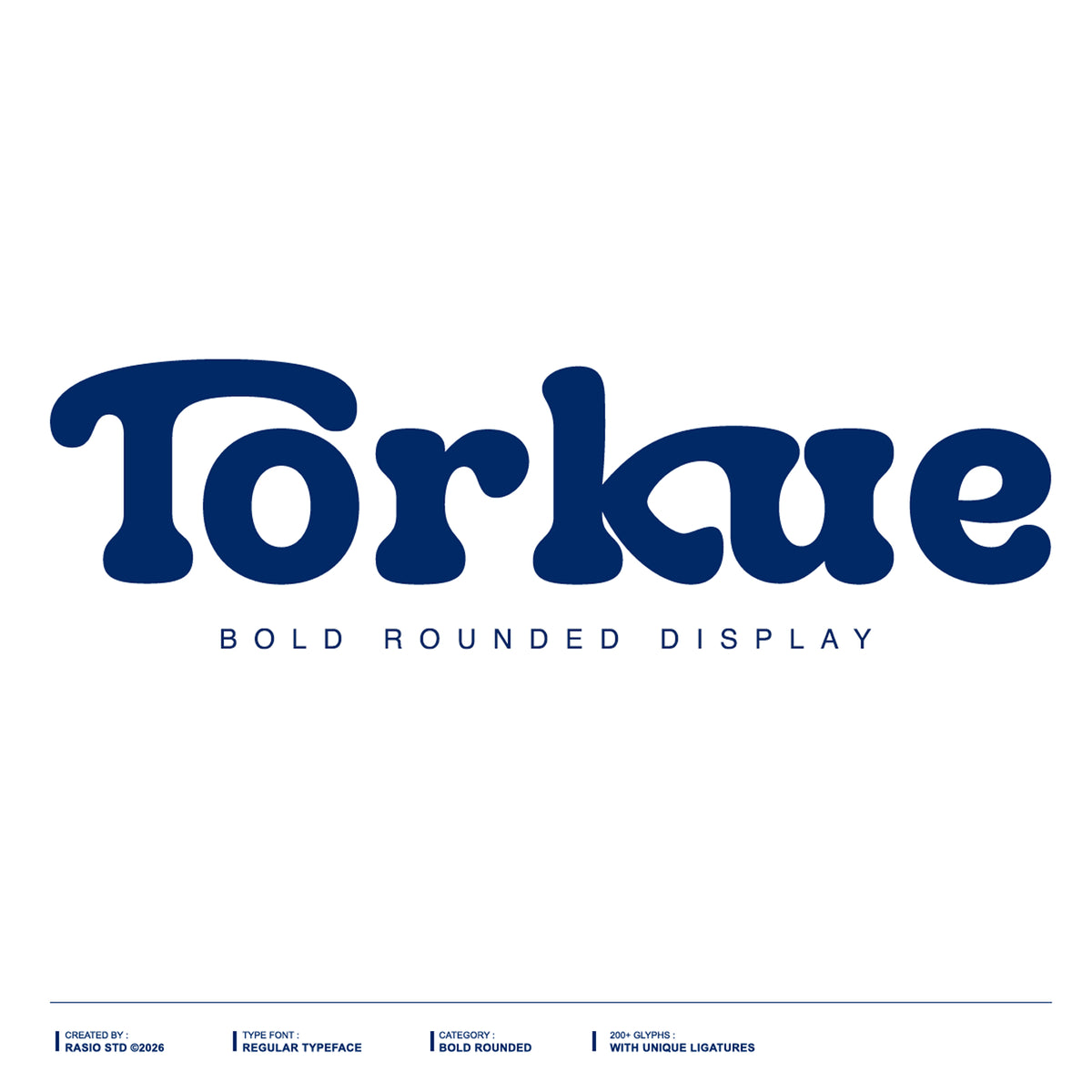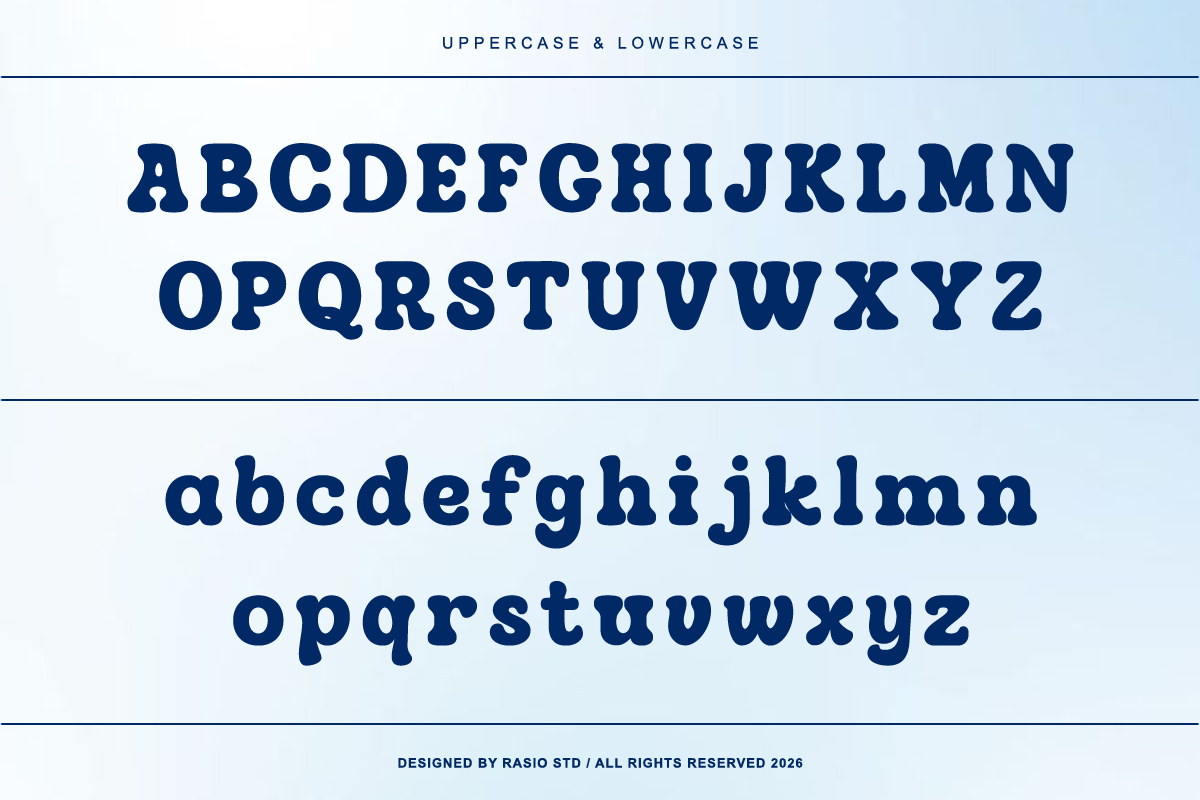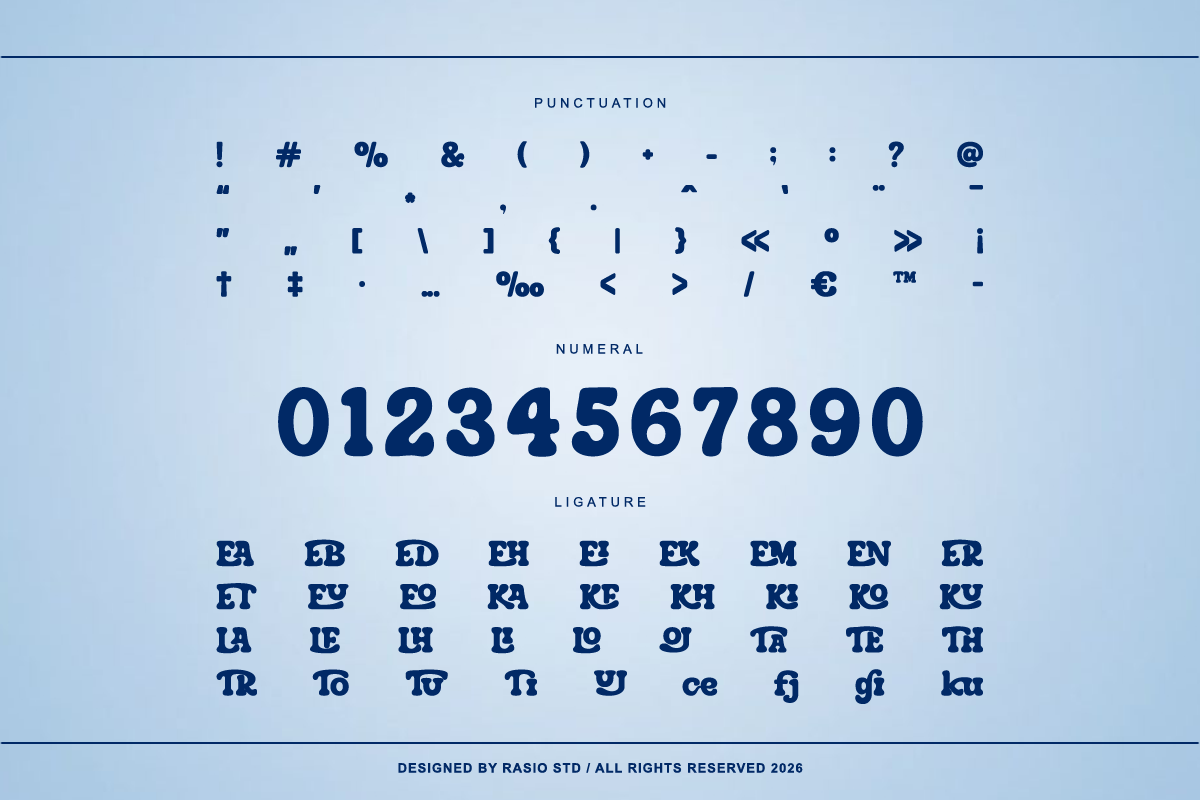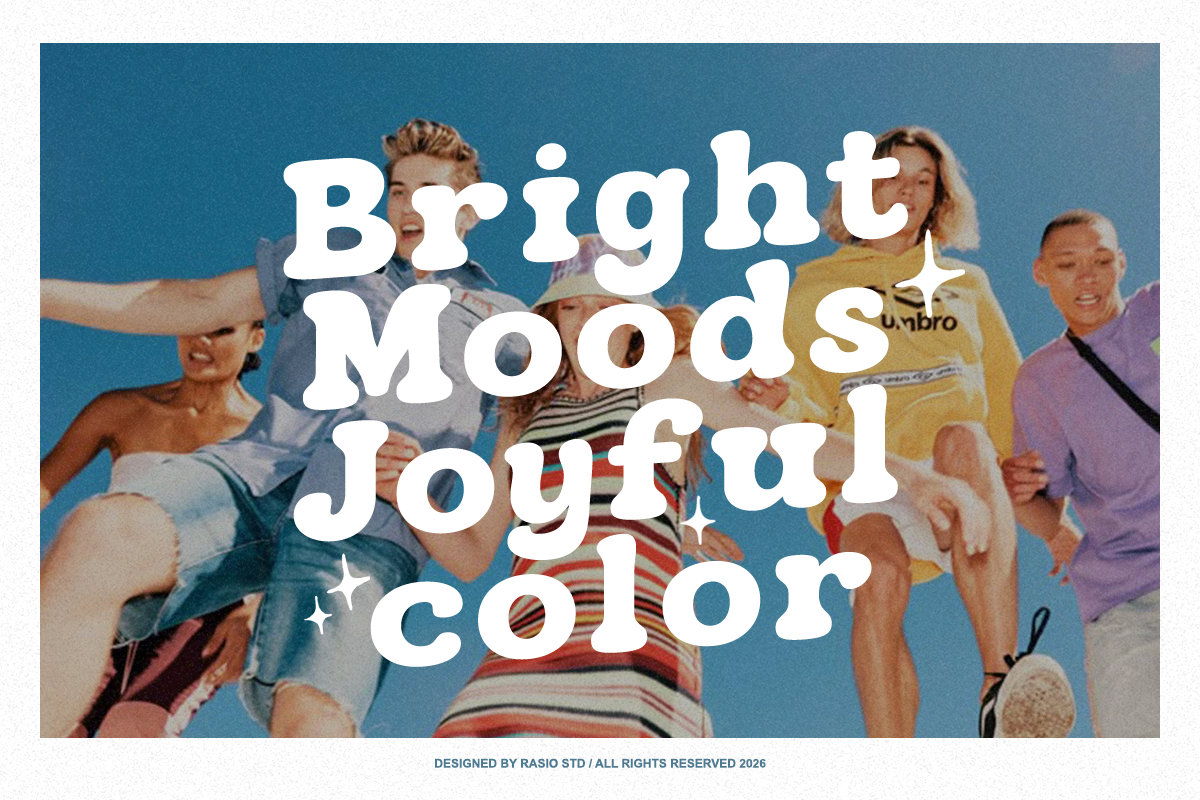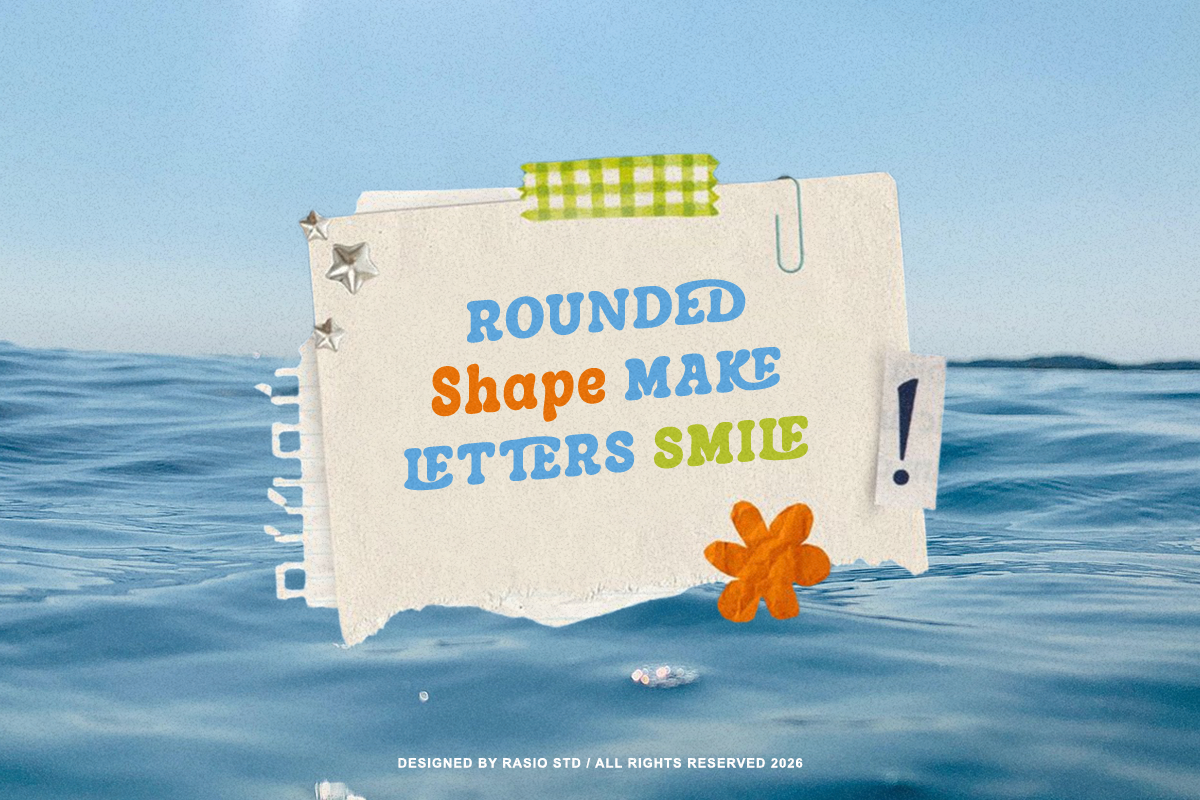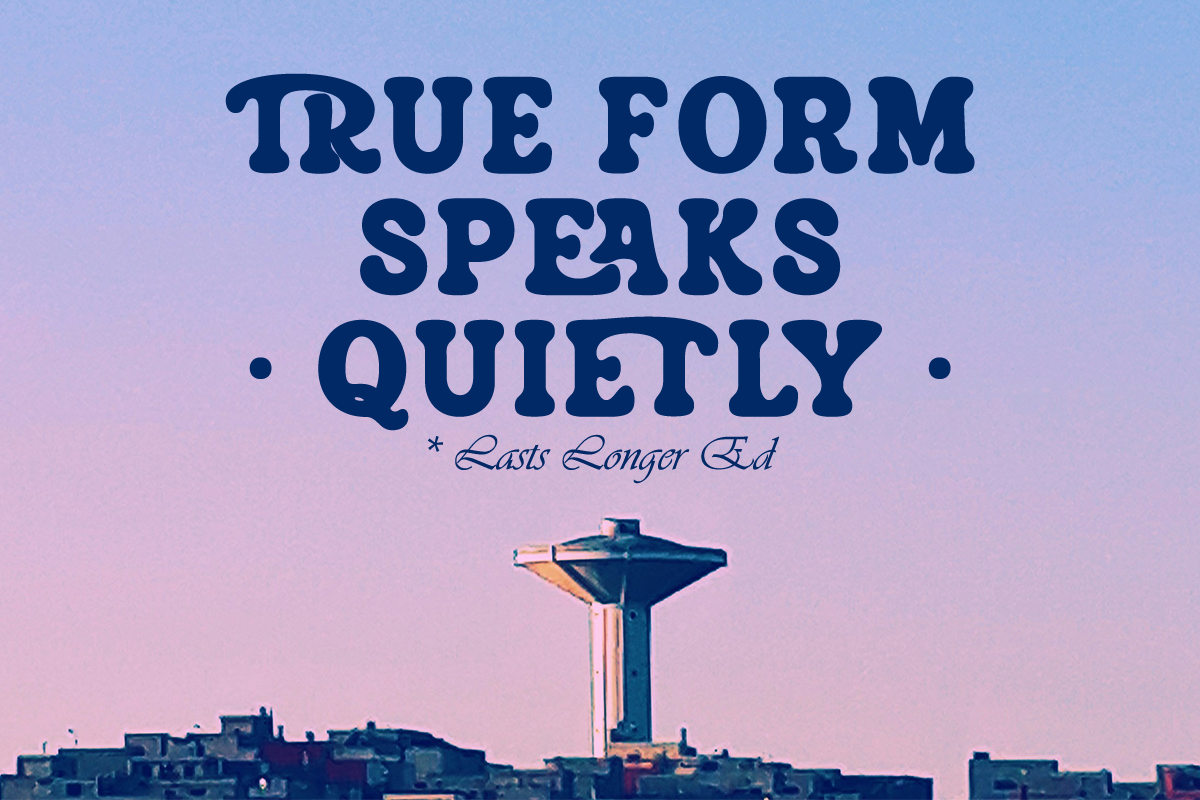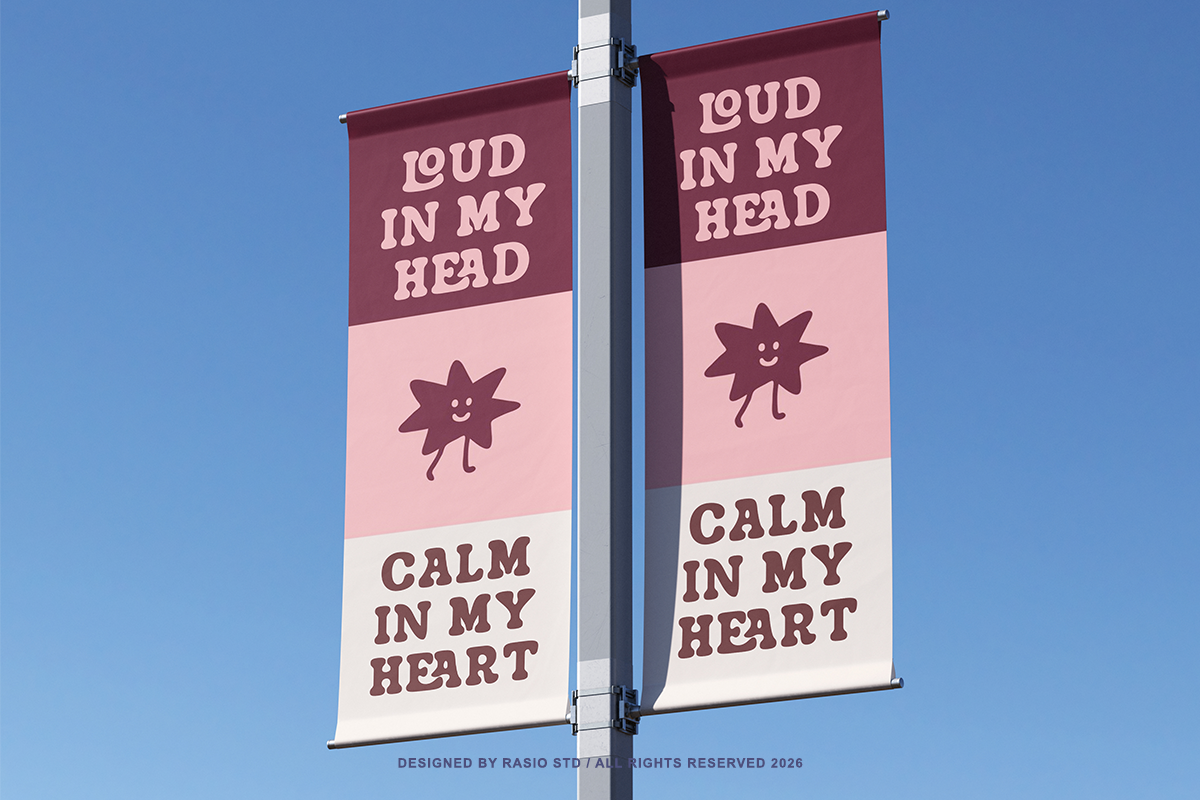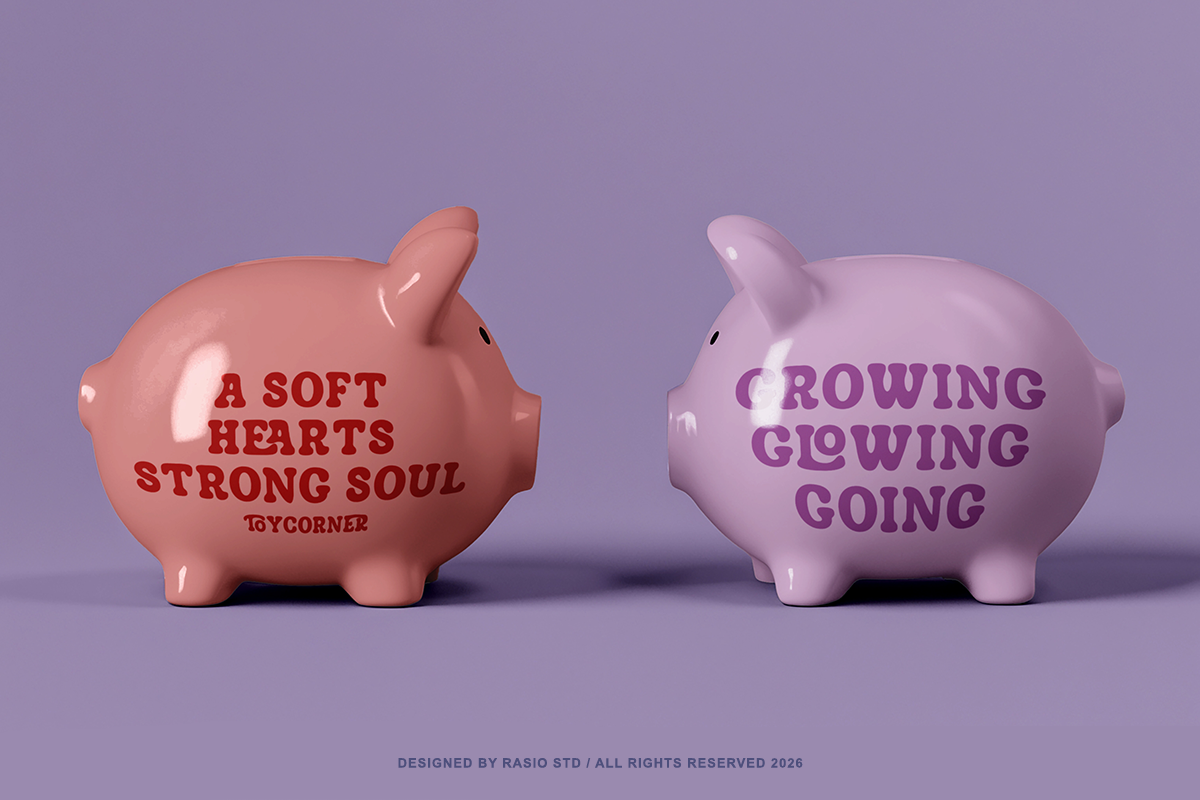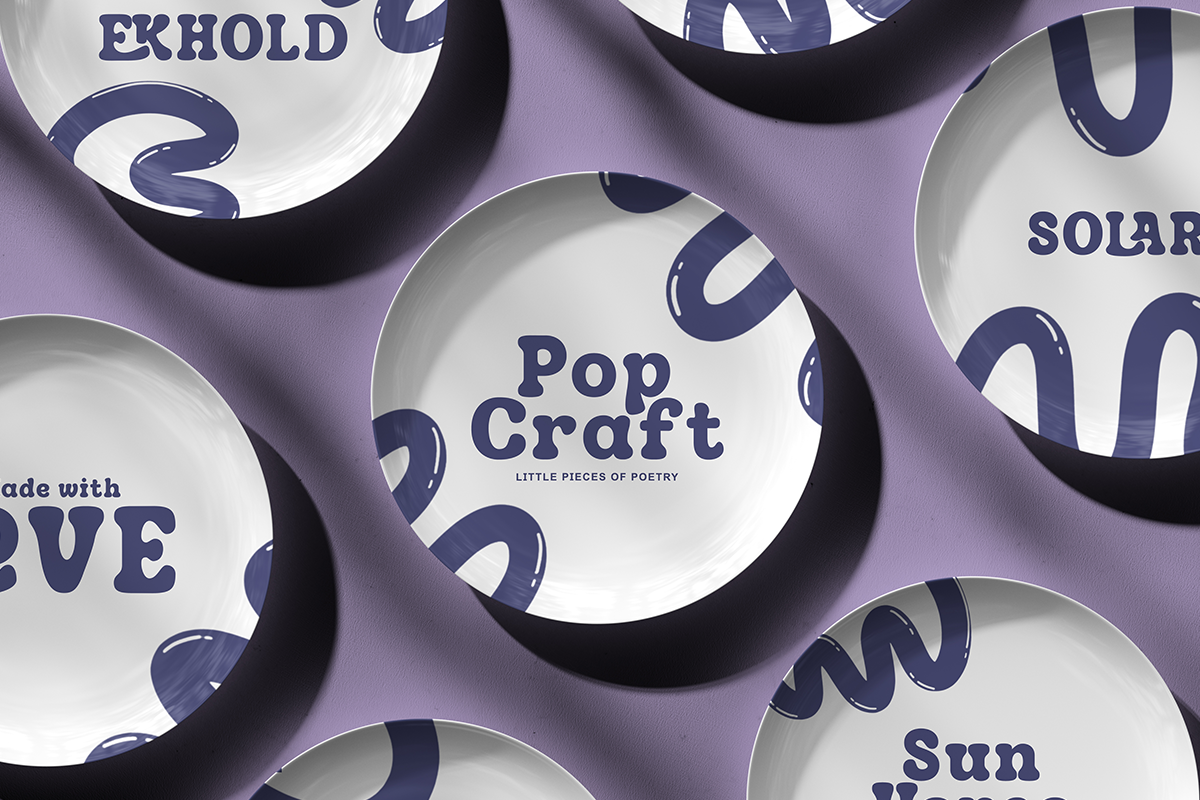
Torkue Bold Rounded Display Font
Torkue is a fun, bold rounded display typeface, with soft curves and a playful structure, this typeface brings character and warmth to any design. It includes uppercase, lowercase, numbers, punctuation, and over 200 unique ligatures, offering creative flexibility for eye-catching headlines, logos, social graphics, and packaging. Torkue is ideal for projects that aim to express joy, creativity, and a friendly tone, while maintaining a bold presence in modern layouts.
Relevance and Use Cases is perfect for designers who want to bring a vibrant and cheerful energy to their work. The bold, rounded shapes and playful ligatures make it suitable for branding, social media, kids’ products, music festival posters, retro packaging, editorial headlines, and modern lifestyle content. It brings out a nostalgic yet fresh feel, making it stand out in both print and digital applications.
Torkue is a bold rounded display typeface featuring soft curves, uppercase and lowercase letters, numerals, punctuation, and over 200 ligatures. It is available in OTF, TTF, and WOFF formats.